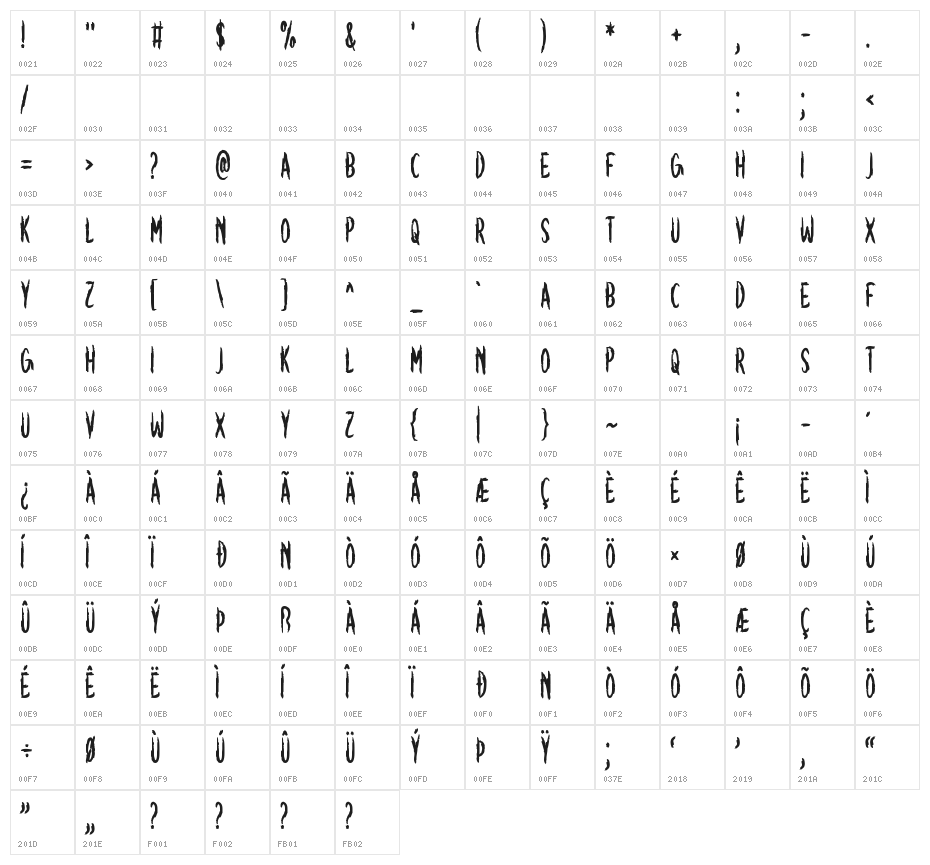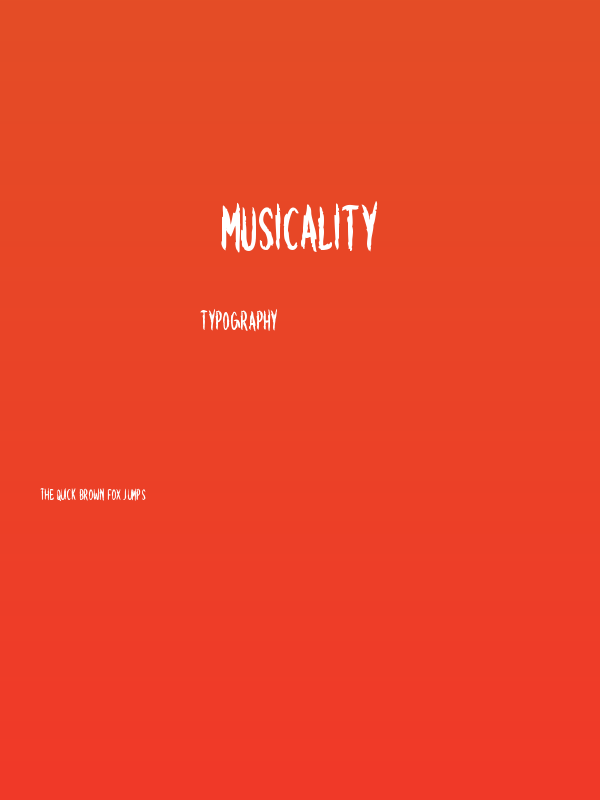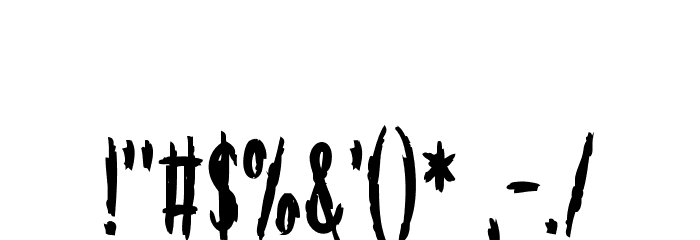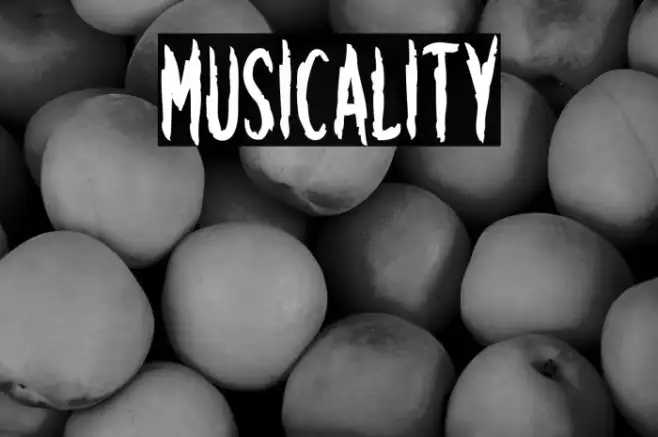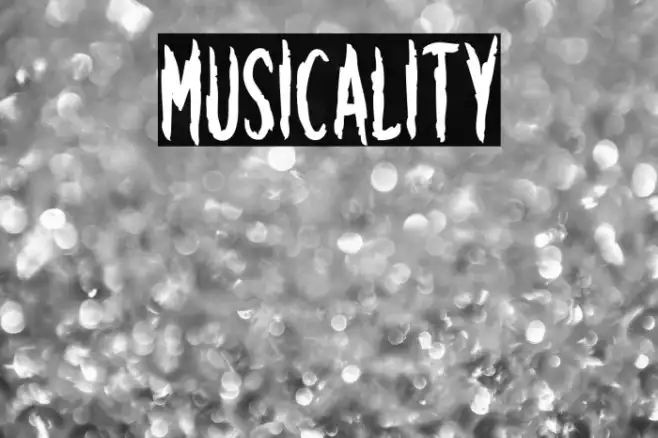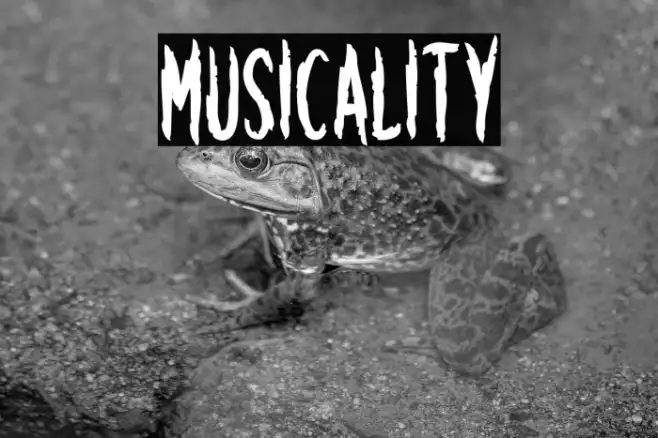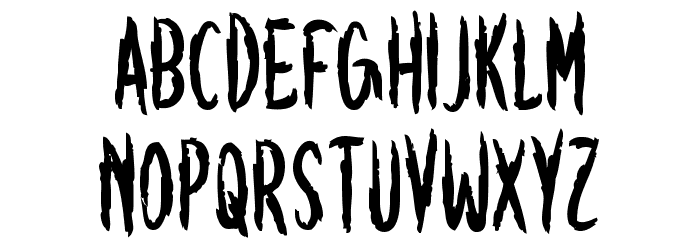
Musicality Font
Musicality Description
This font features a bold and expressive style, reminiscent of brush strokes with a dynamic and energetic appearance. The characters are slightly irregular, giving them a hand-drawn feel that adds personality and flair. The uppercase and lowercase letters maintain a consistent height, while the strokes vary in thickness, creating a lively rhythm. The numbers and special characters follow the same artistic style, ensuring a cohesive look across all elements. This font is ideal for projects that require a touch of creativity and individuality.
| Proposed Projects | Perfect for music album covers, artistic posters, creative branding, and event invitations. |